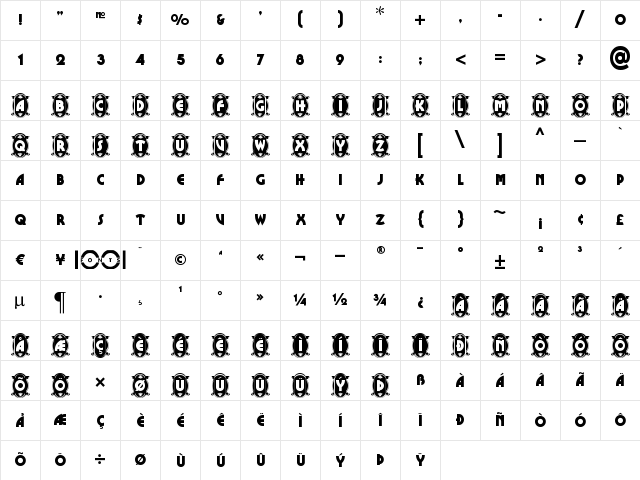
Complete Cameo Appearance NF Regular glyph index. Displaying only characters natively supported by Cameo Appearance NF Regular font.
Cameo Appearance NF is a composed and adaptable typeface that performs quietly and consistently across a wide range of design contexts.